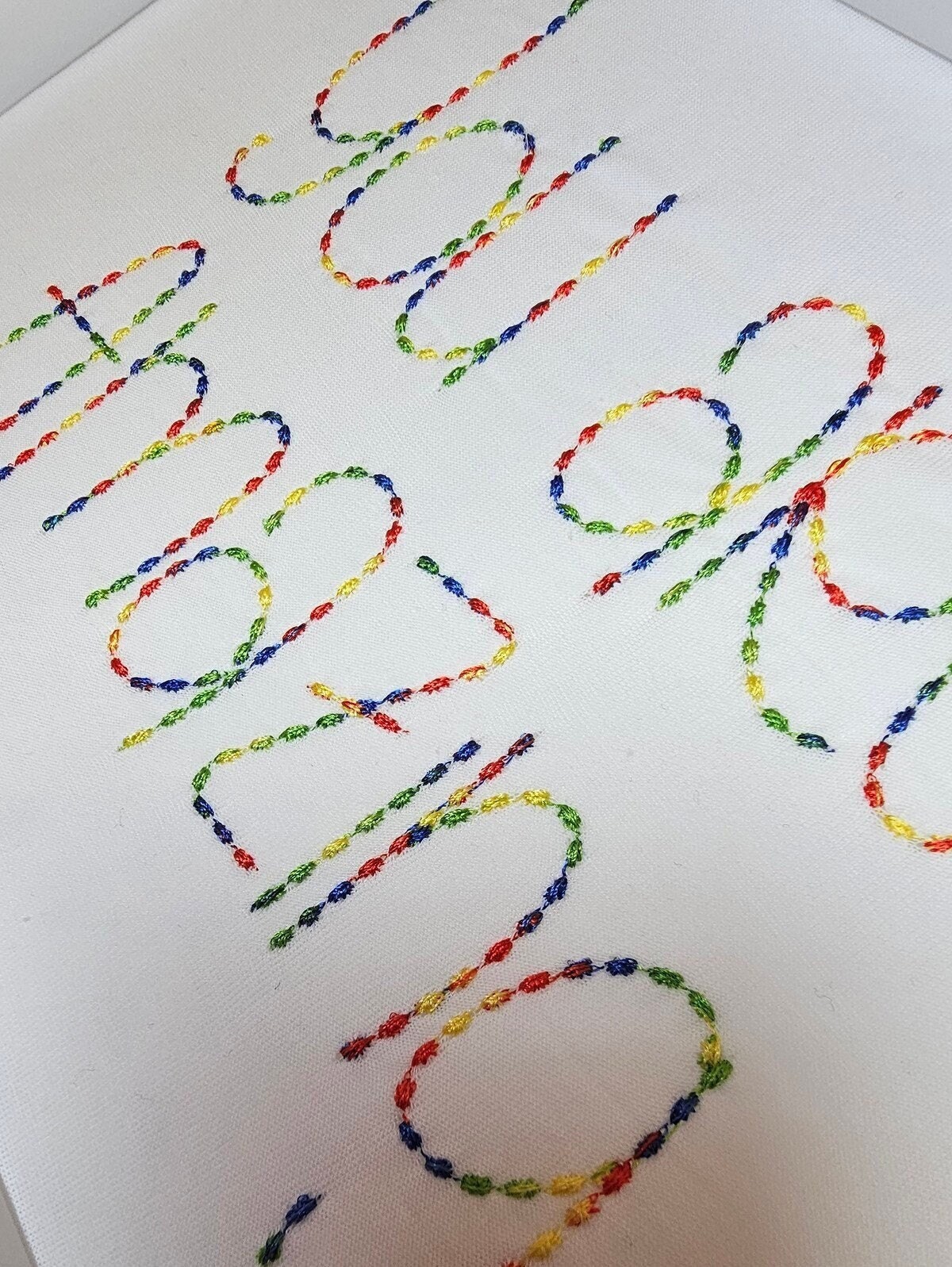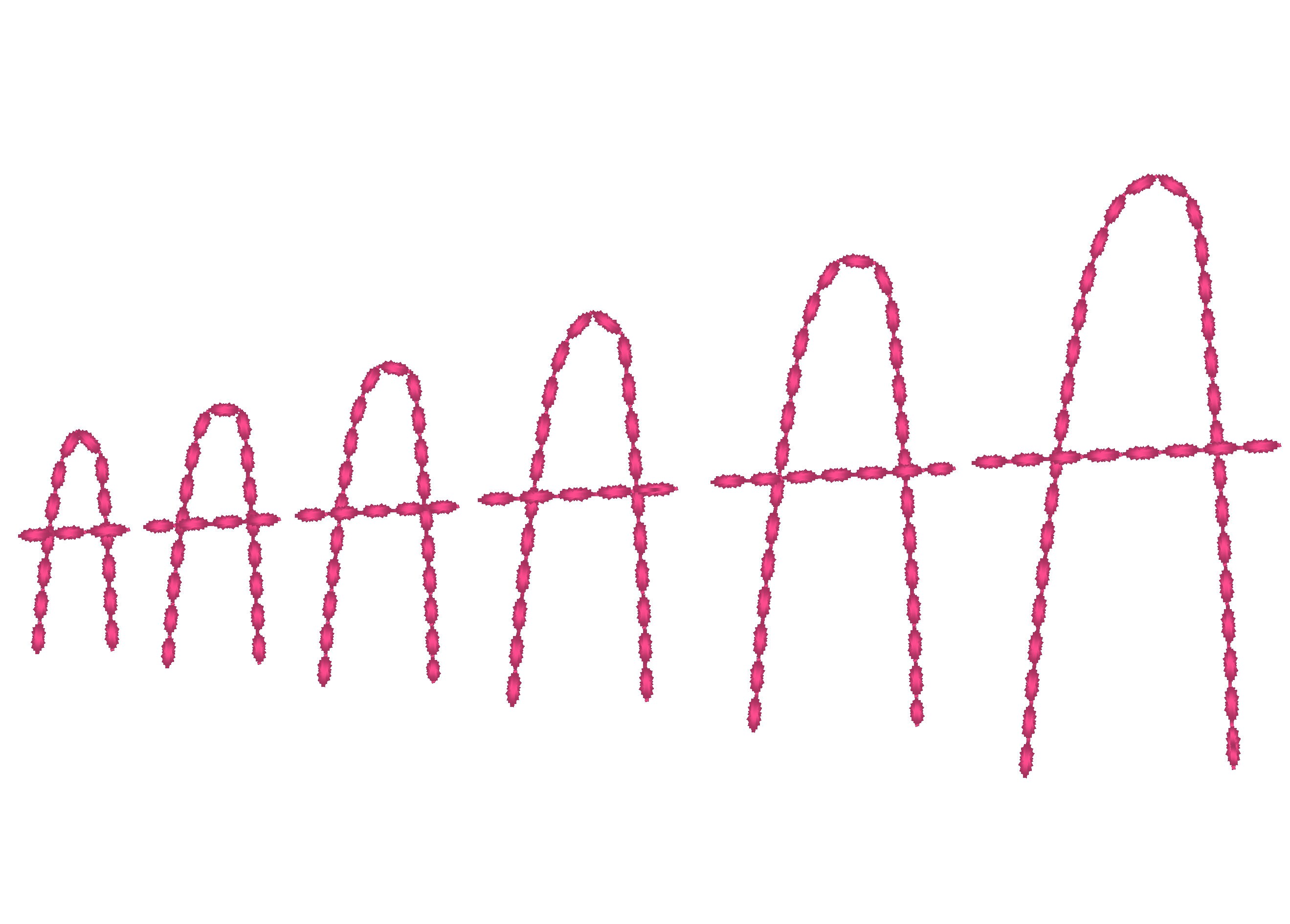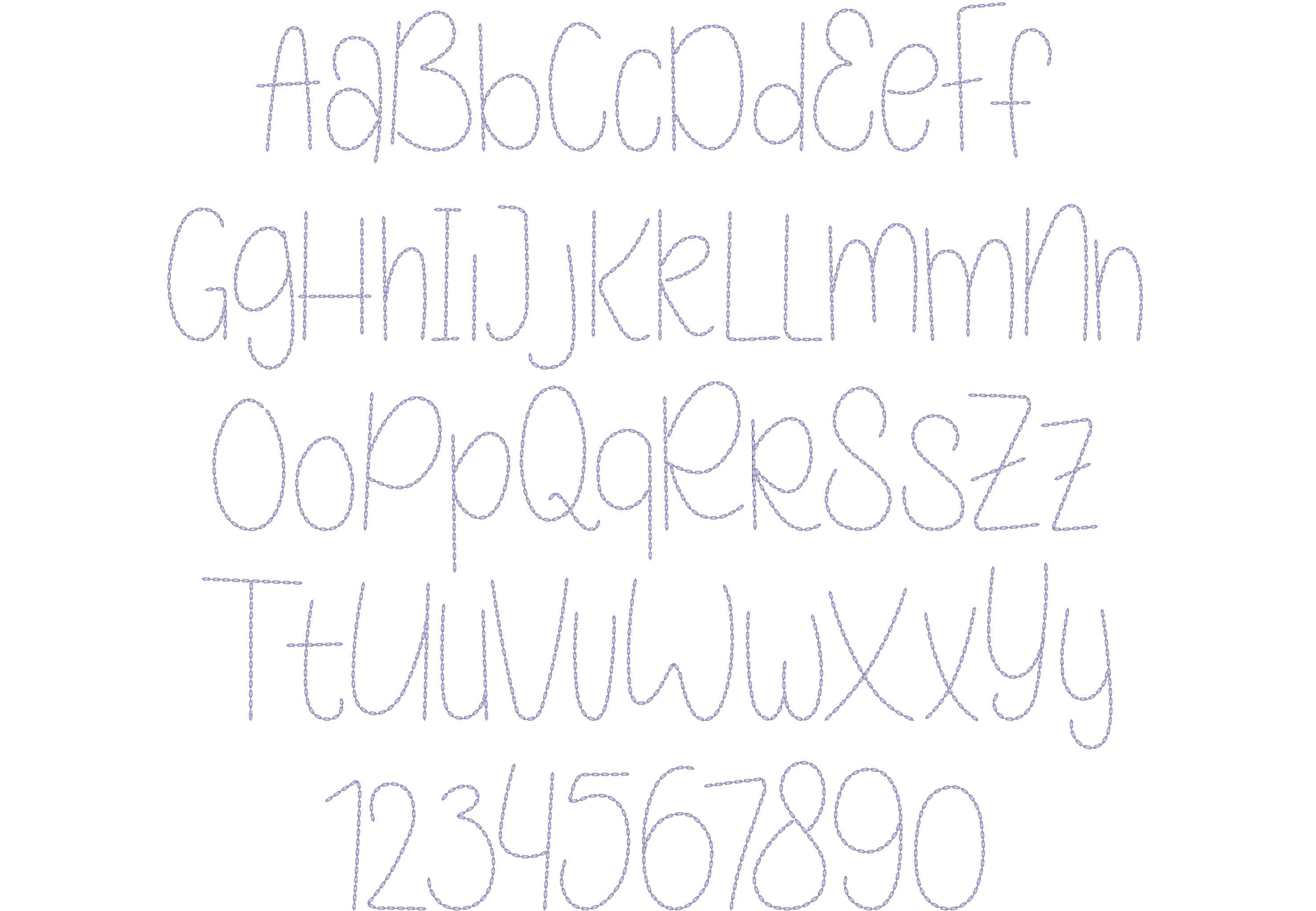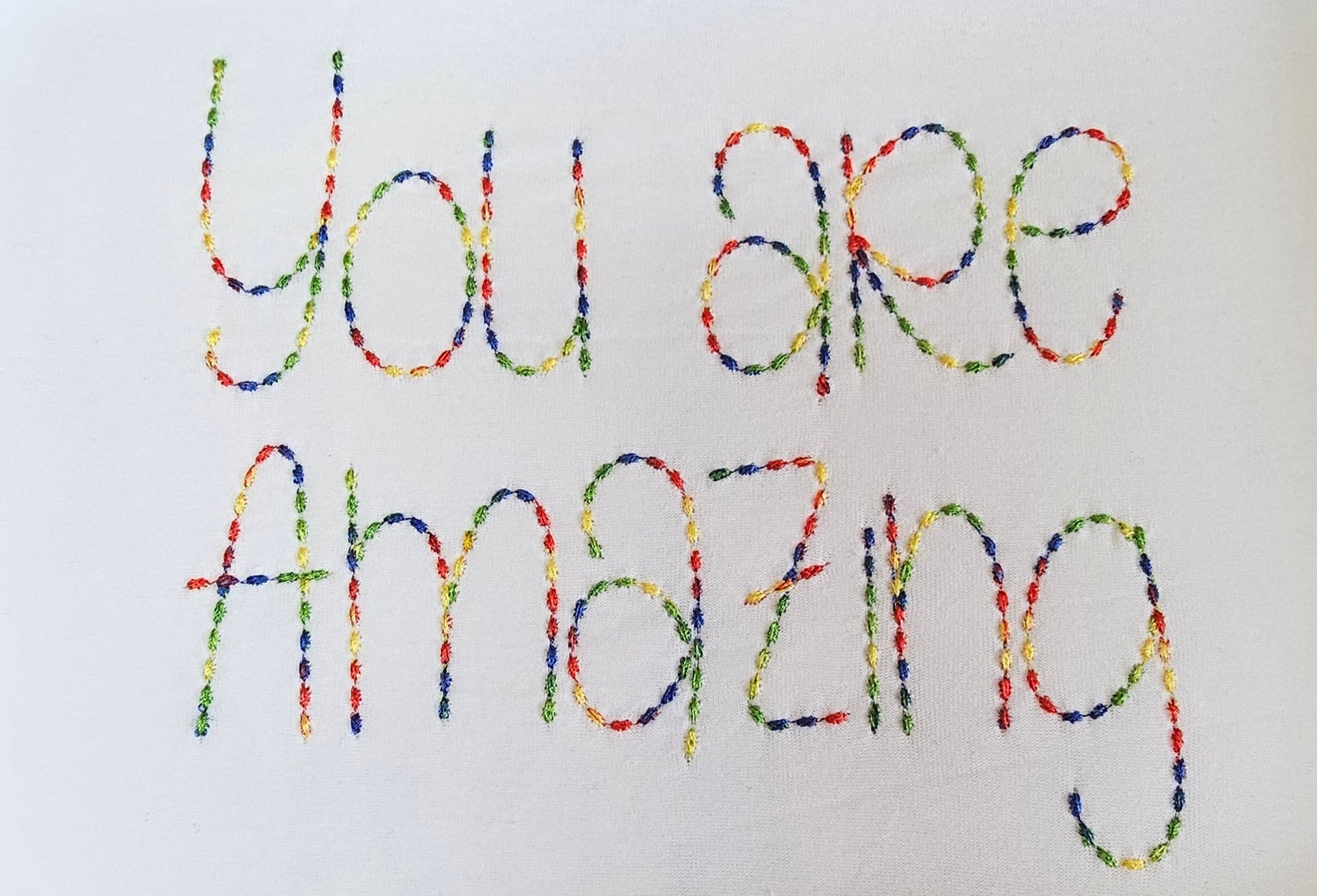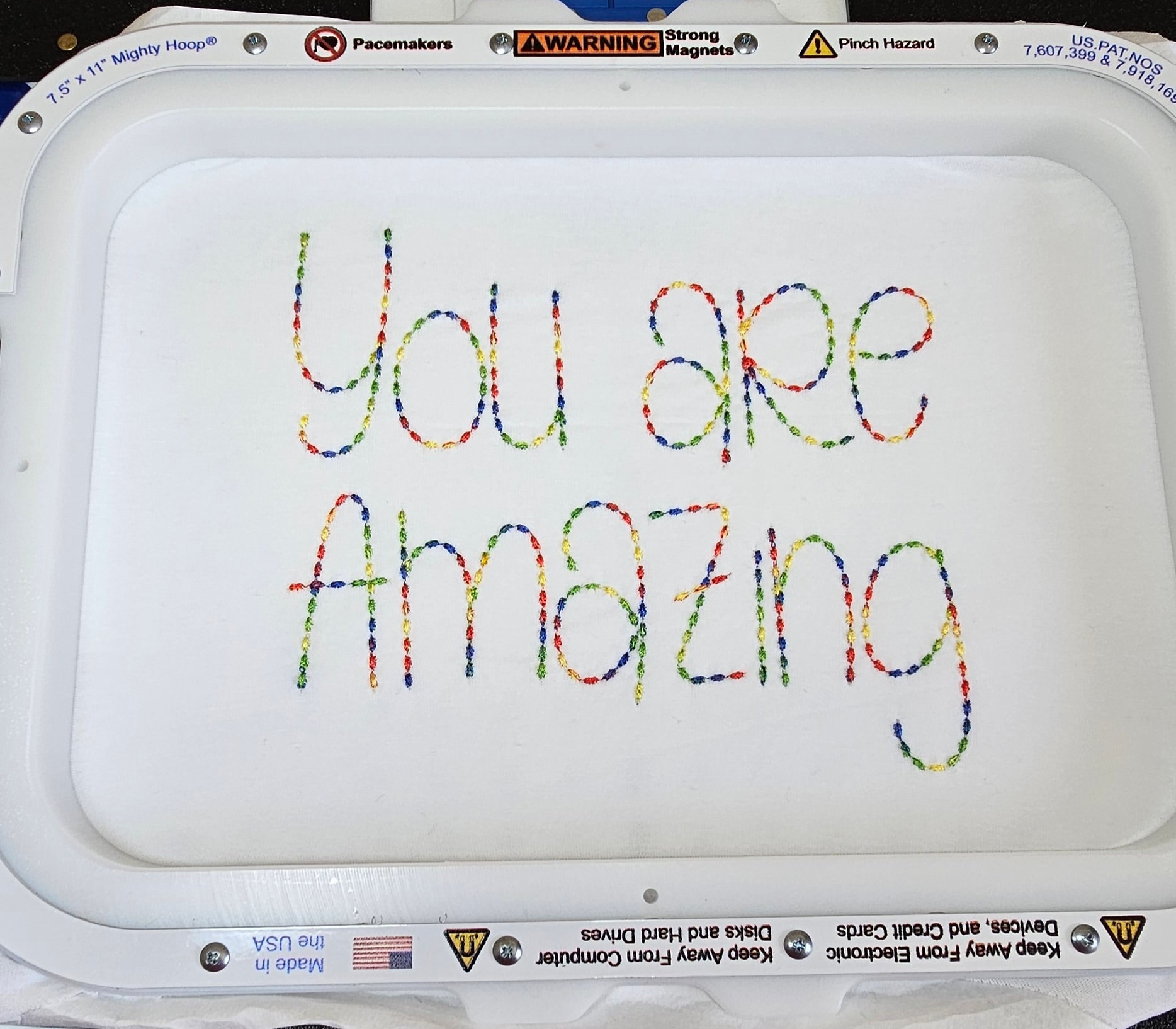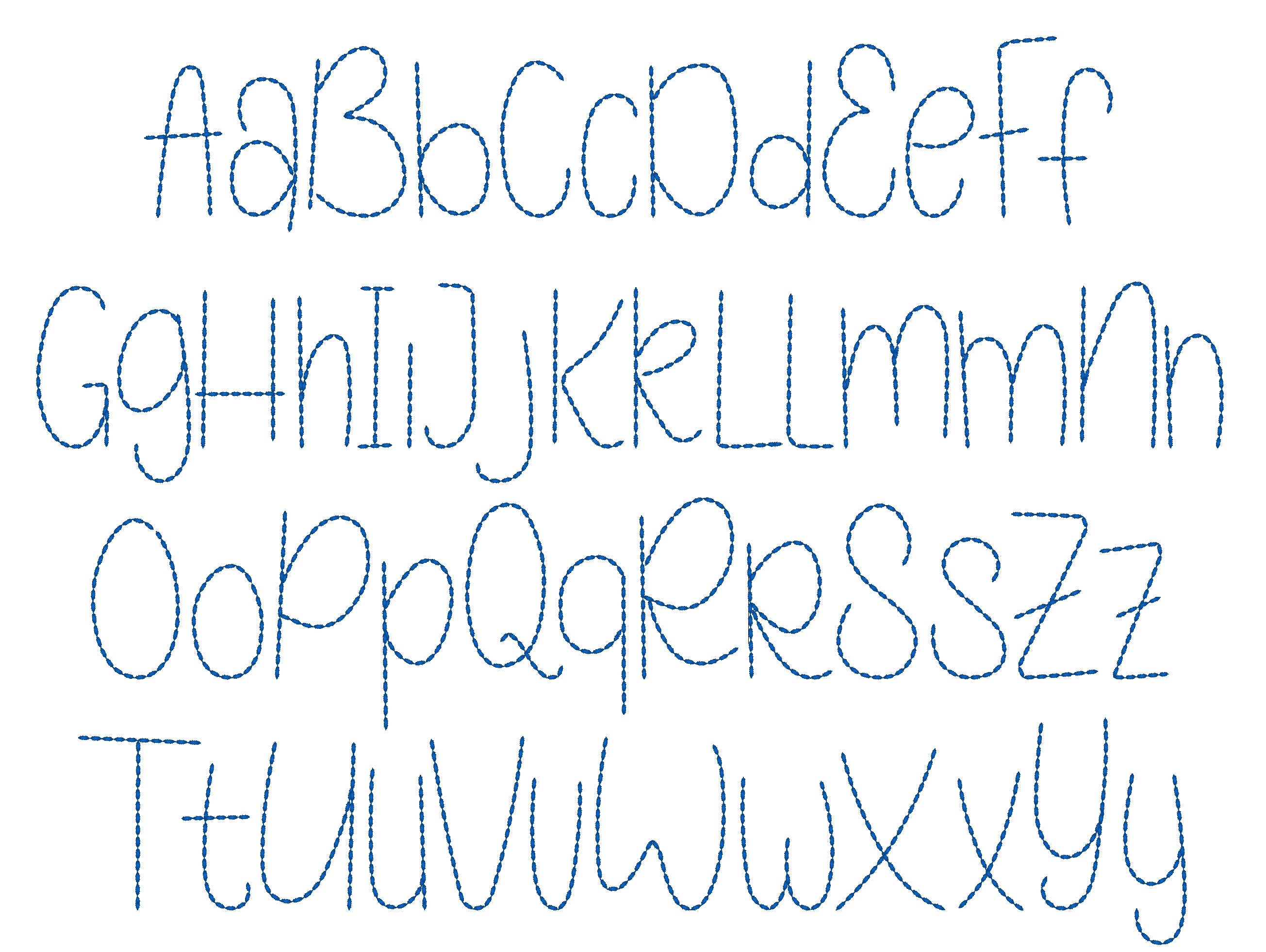
Hand stitch effect FONT machine embroidery designs in assorted sizes alphabet letters and numbers kids Font monogram seed stitch, BX included
Please note, this is one-color font. The font shown in the photos is stitched using variegated thread.
Whole alphabet uppercase and lowercase Aa-Zz, and numbers 0-9.